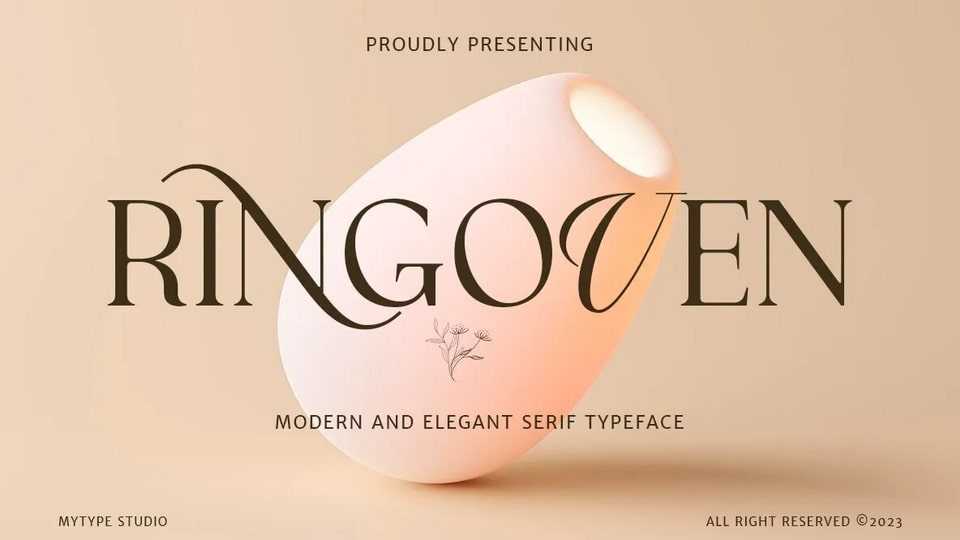
Download Ringoven font, a serif typeface with a natural movement, that makes it look elegant, classy and beauty for your project.
Designer: Mytype Studio